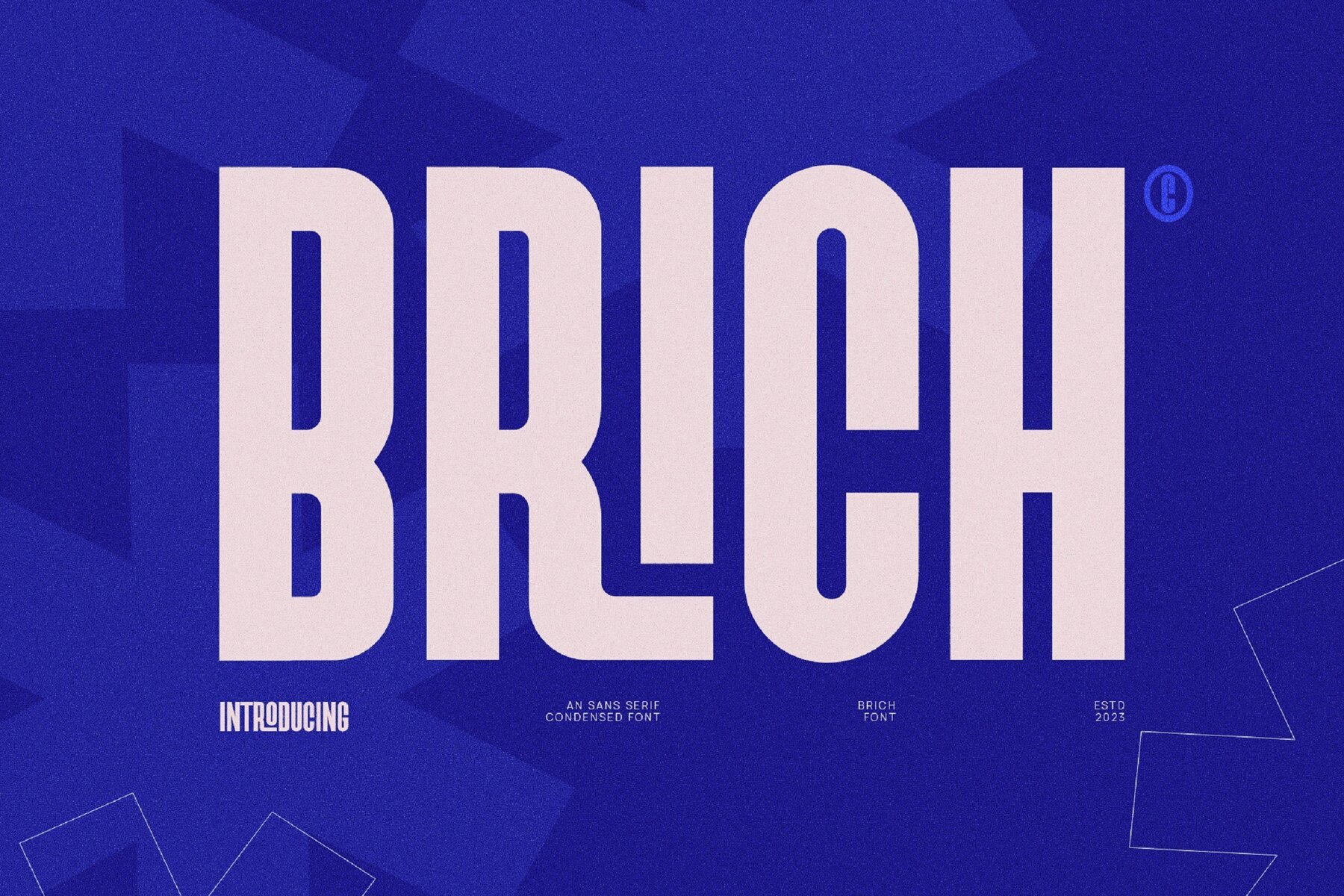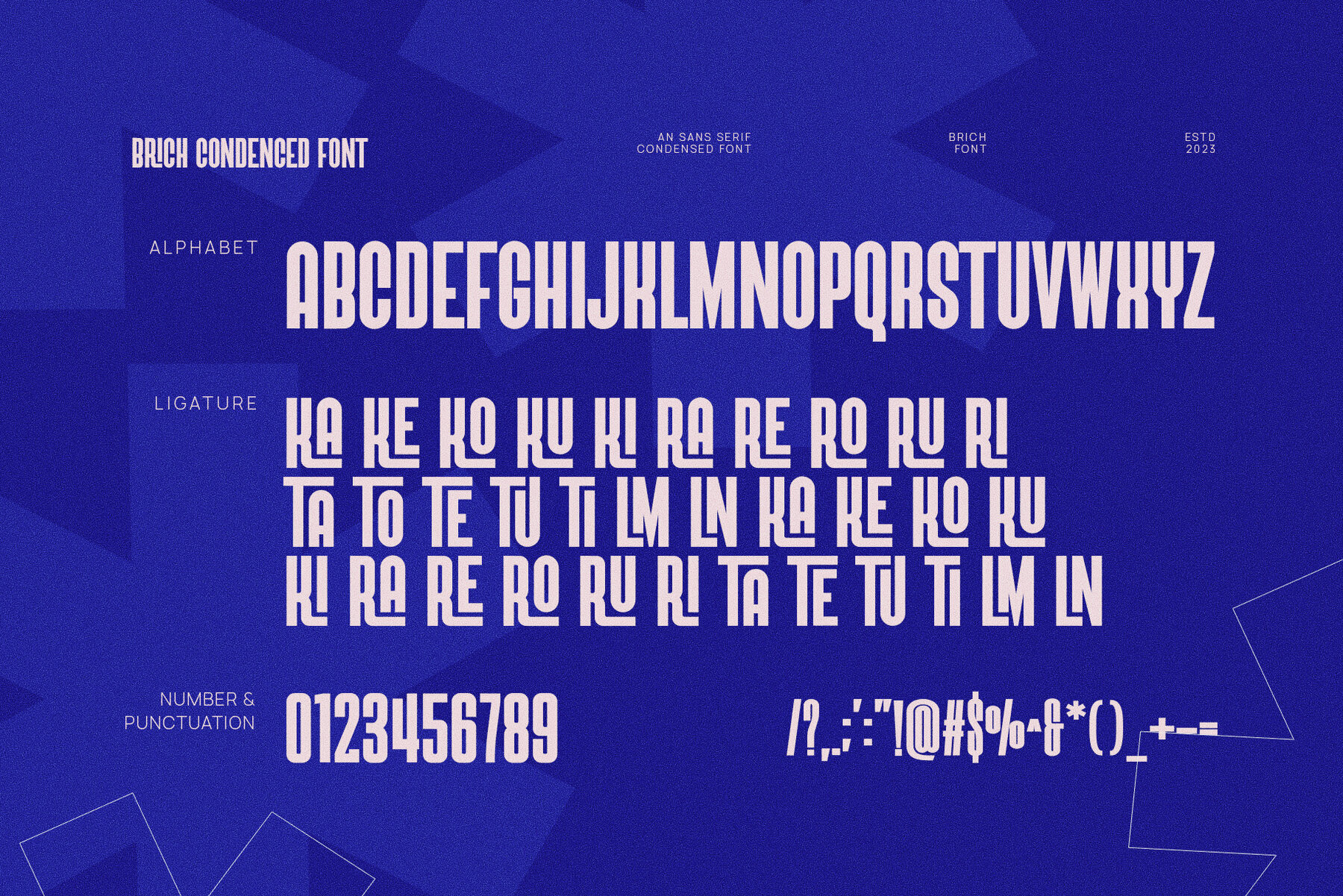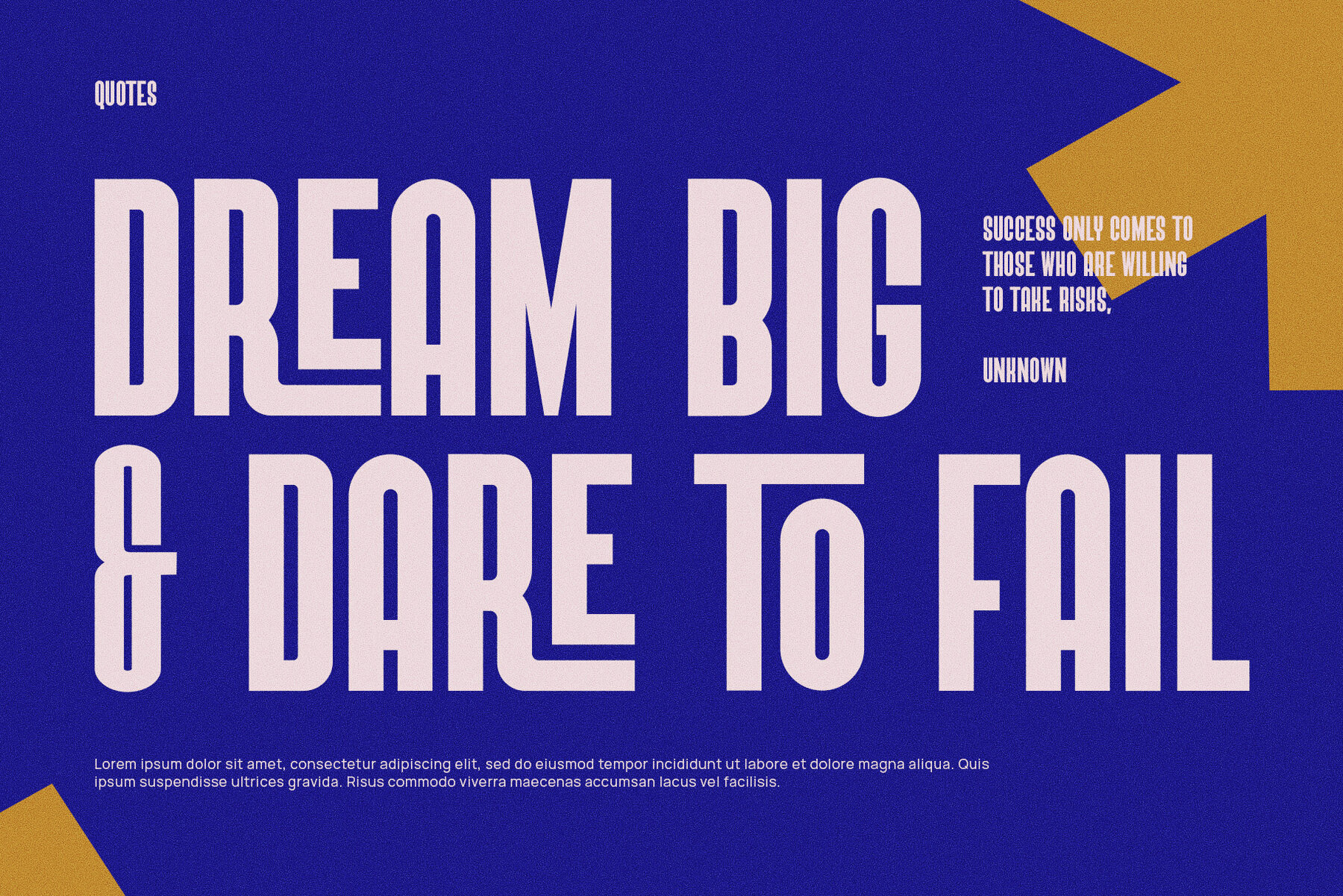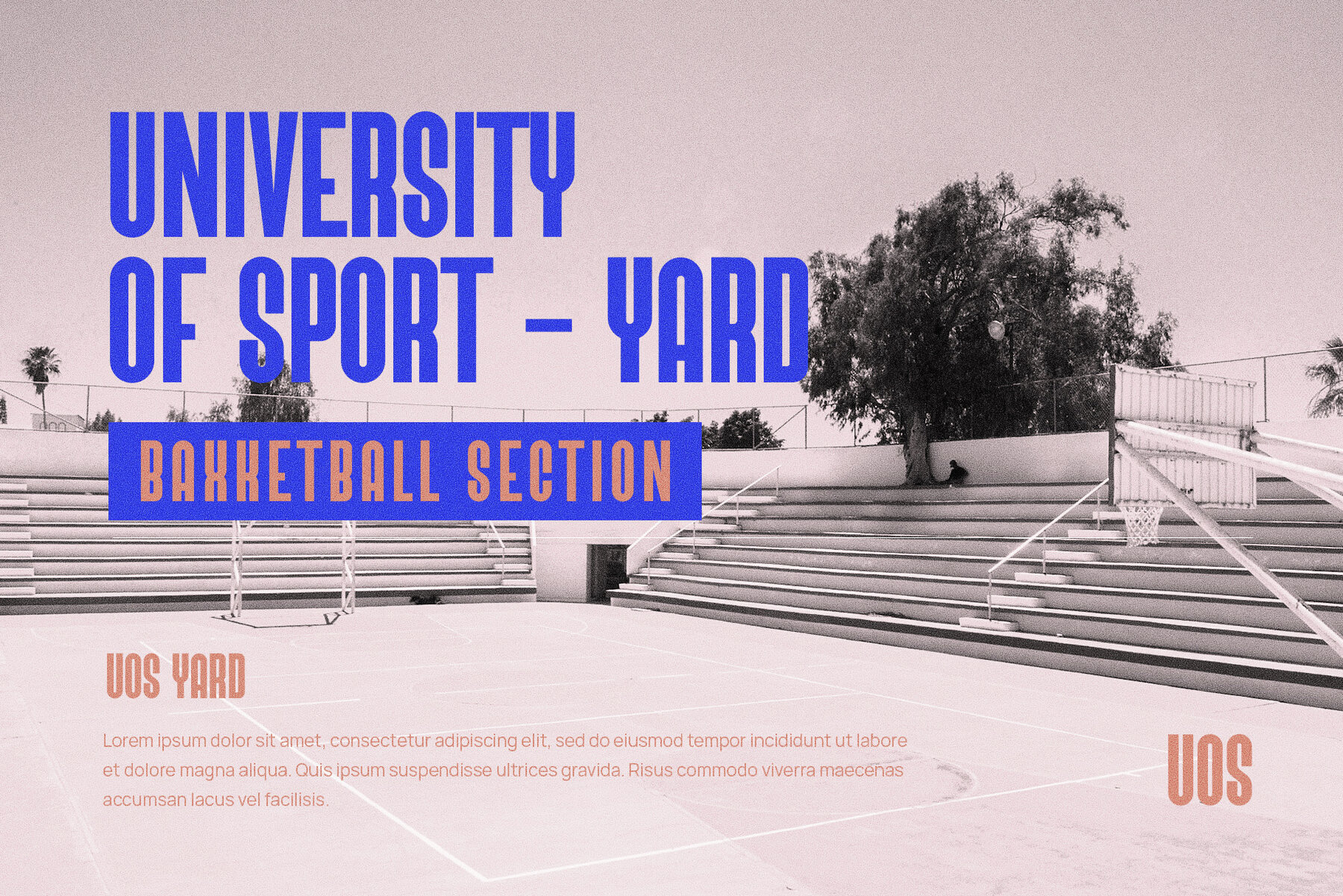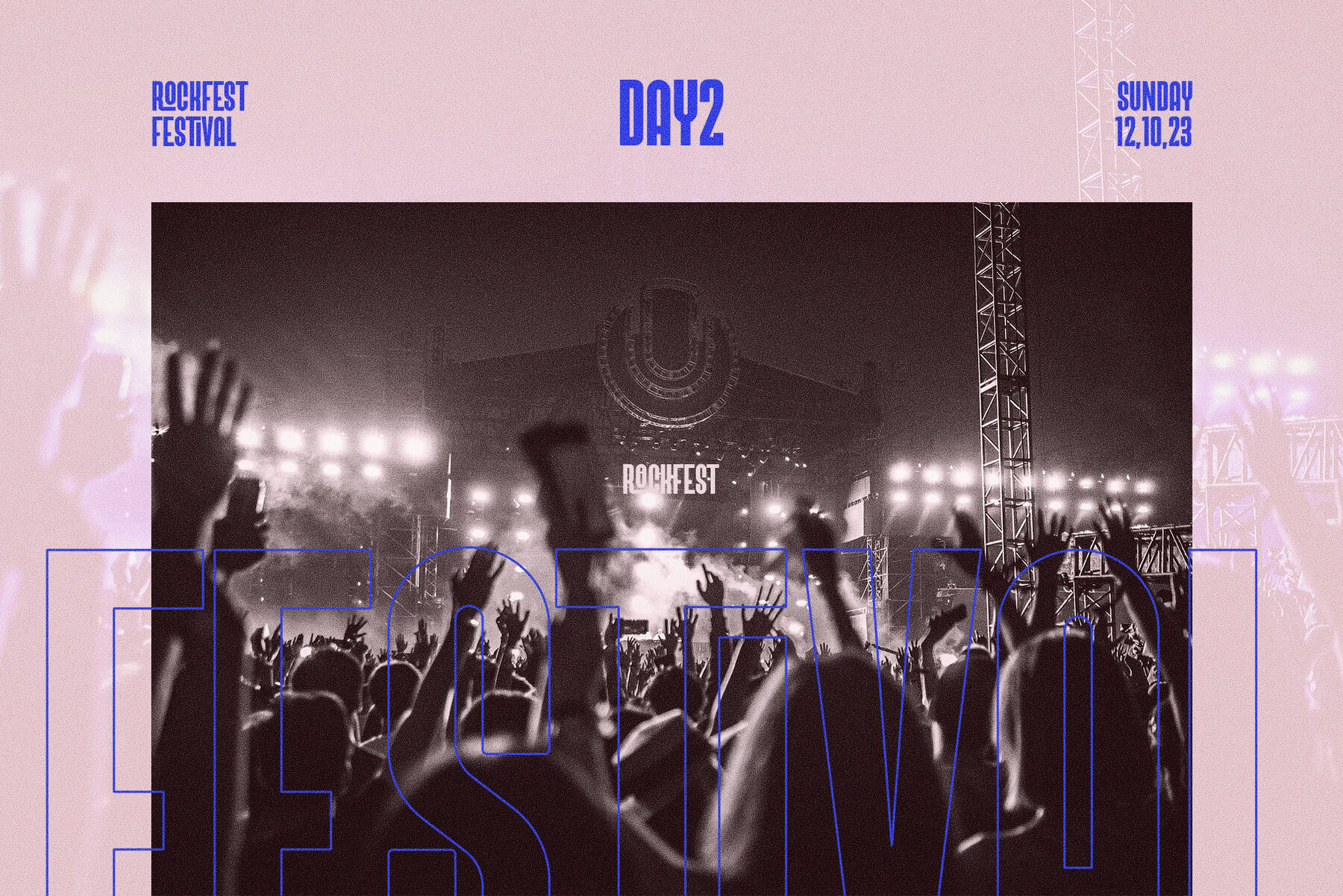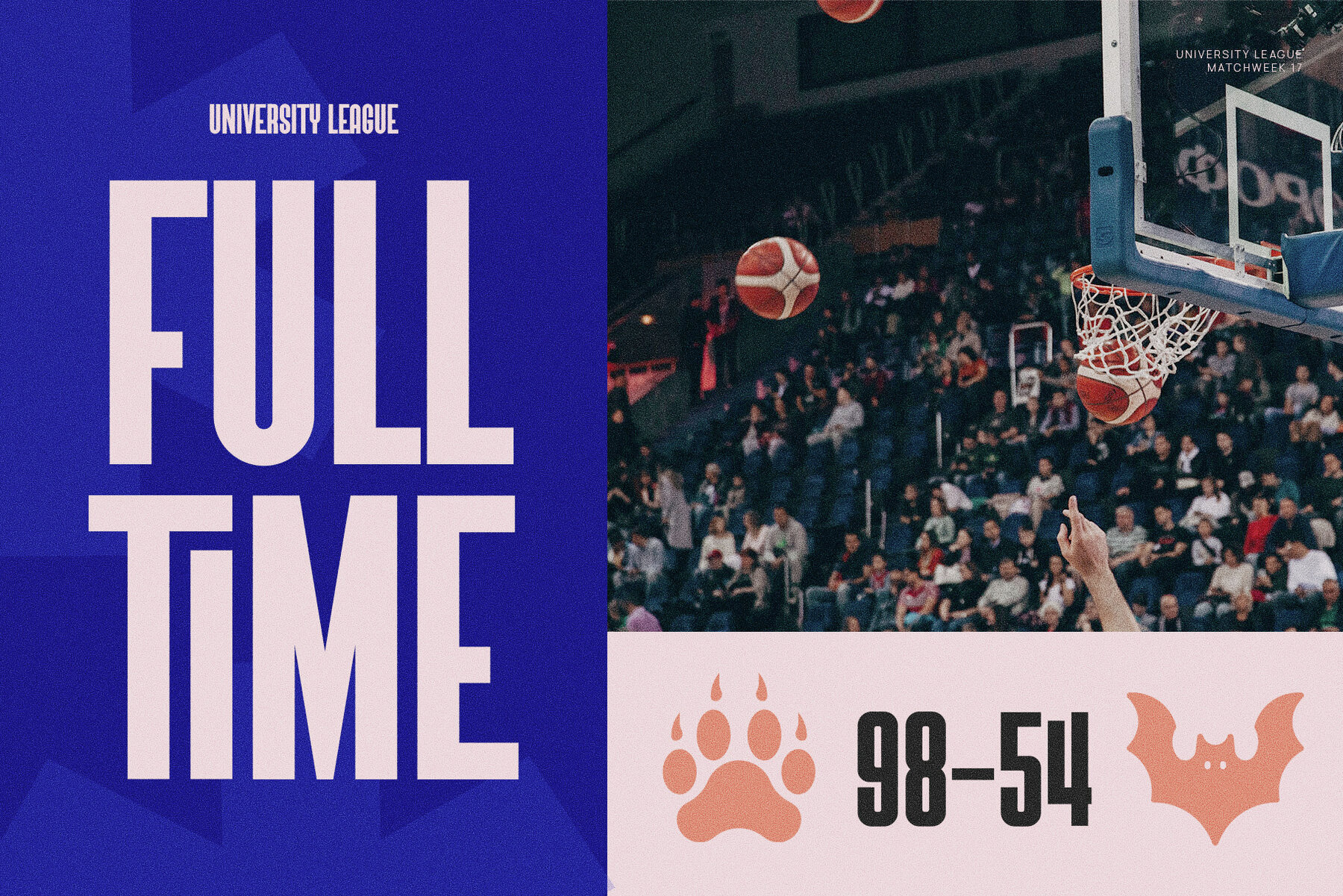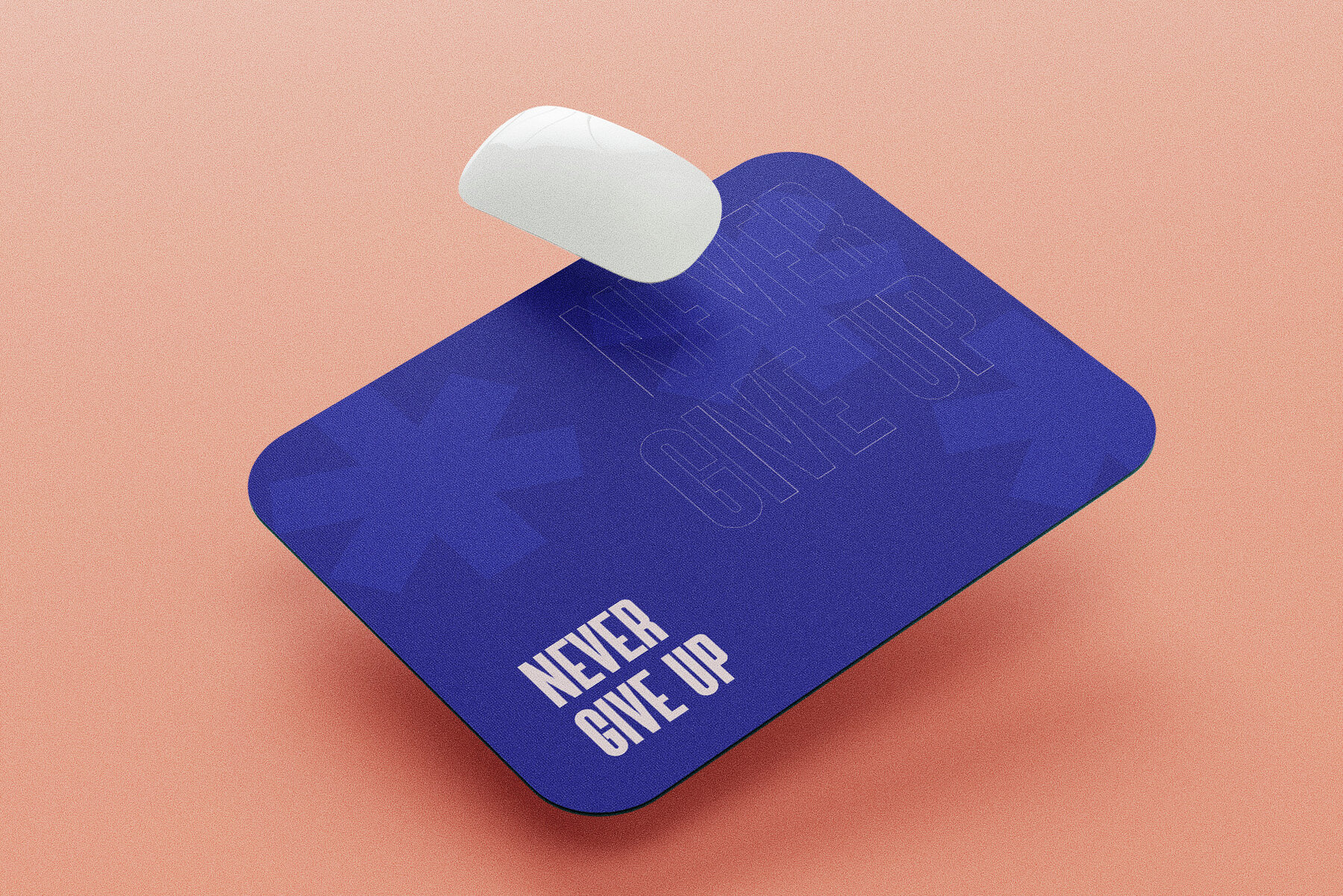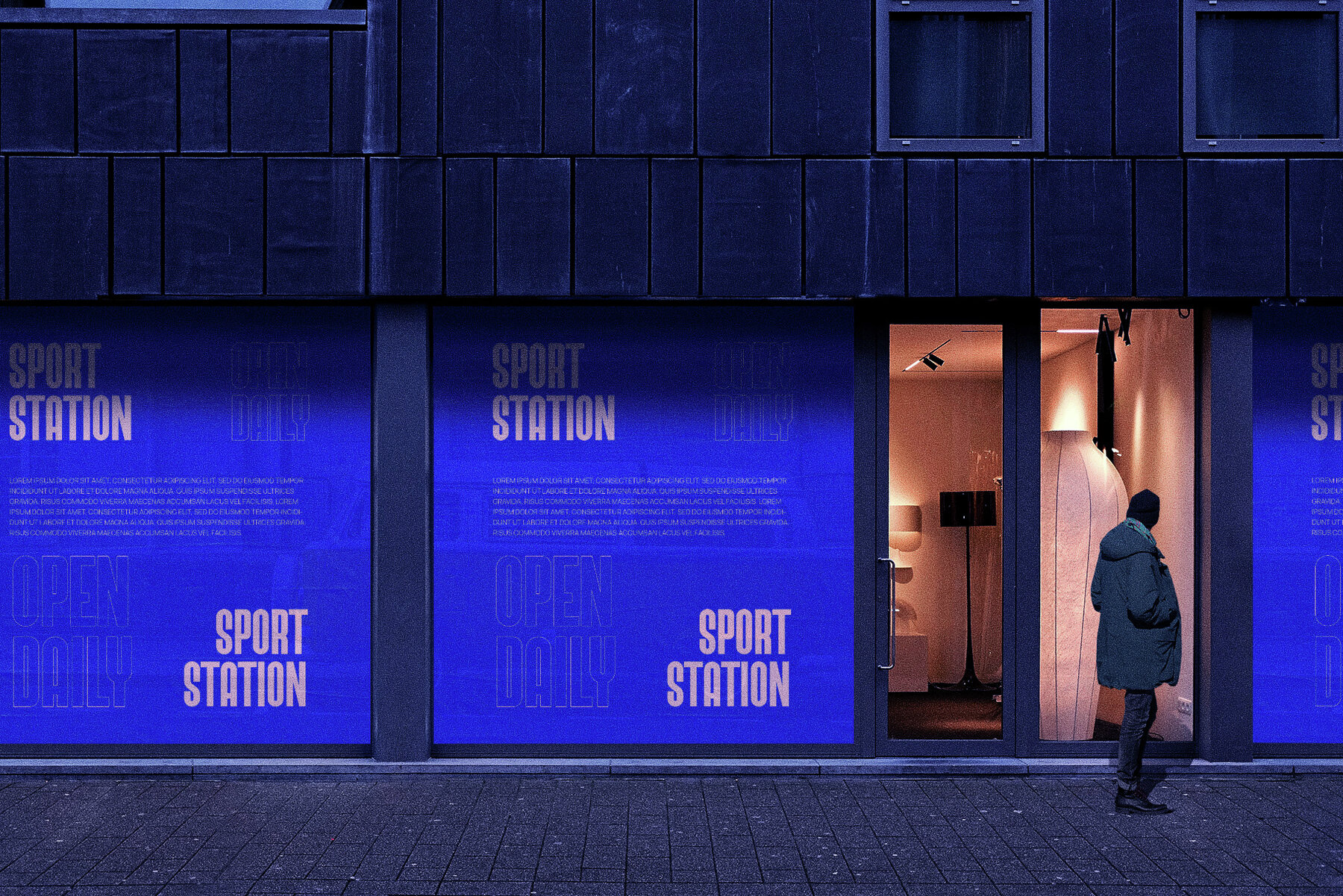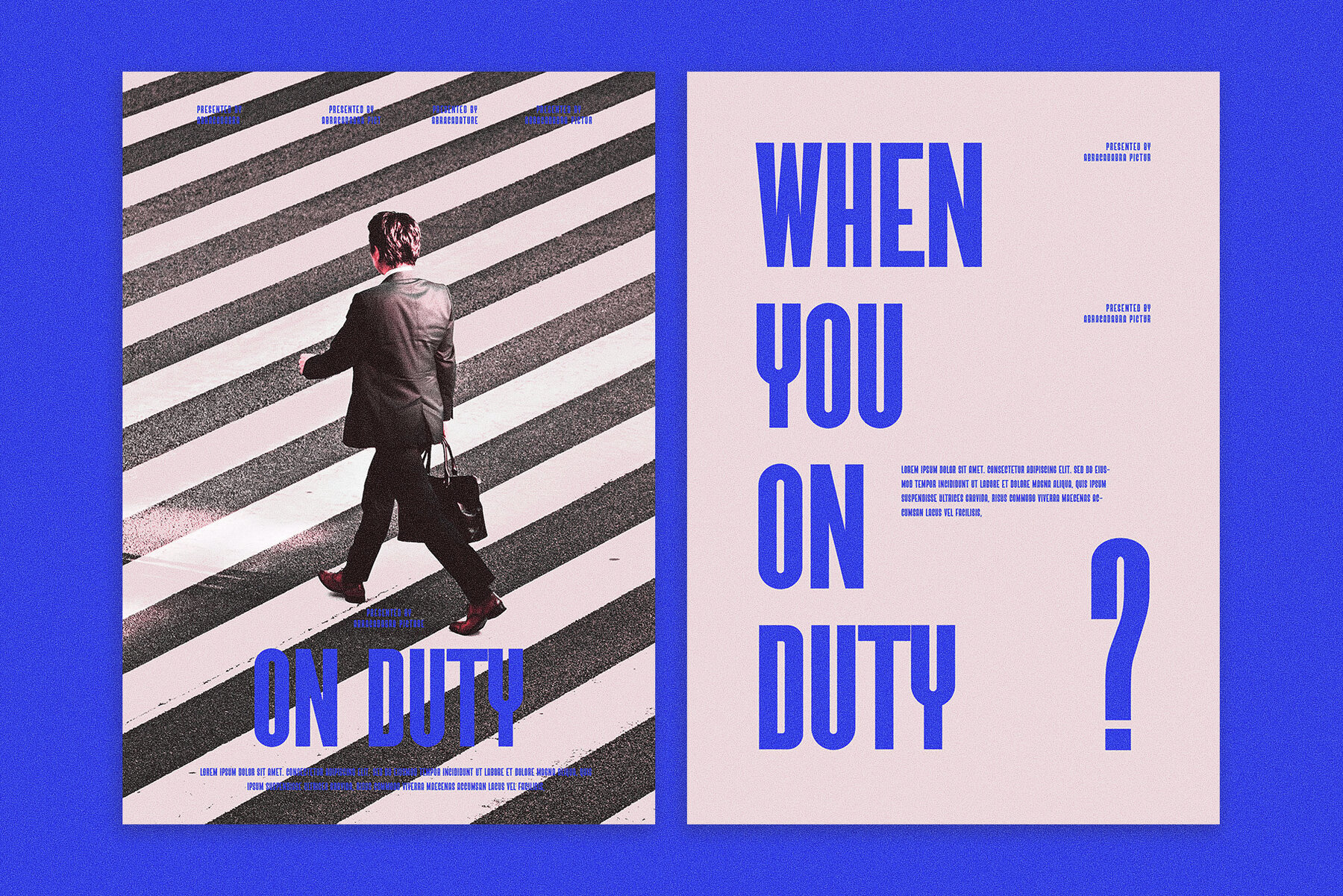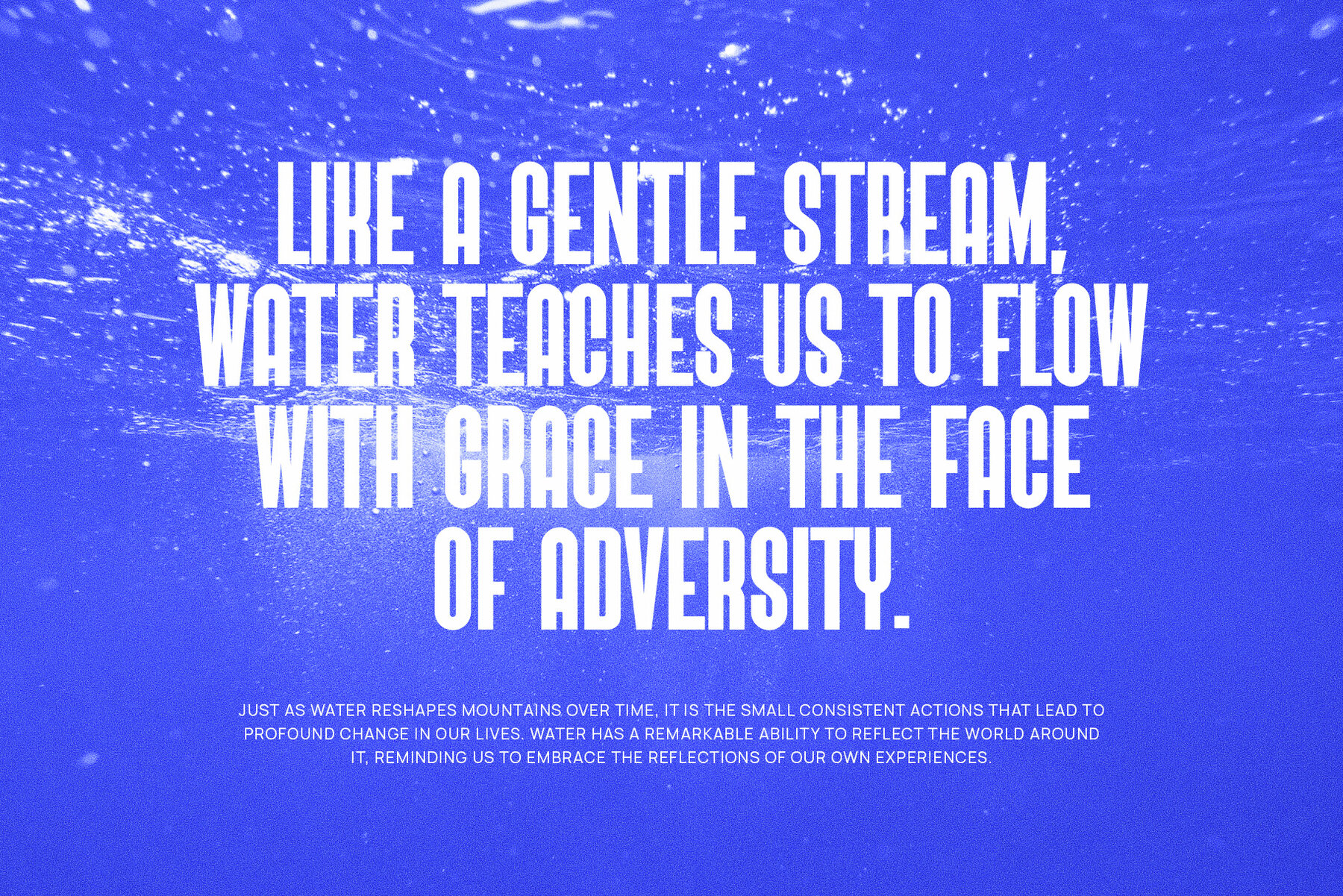
Brich Font
Brich Regular
Roles is a modern and minimalist font that has many binding features. This font has many glyphs consisting of various sequential binding features of all the letters which will certainly beautify and make your design look good and nice. This font is made with a balanced shape with a high level of legibility, so it looks neat when used to write/create various designs and purposes. This font is suitable for your various designs such as branding projects, logos, social media posts, advertisements, product packaging, product designs, labels, photography, watermarks, invitations, stationery, wedding designs and any project, created with a high level of readability high high.